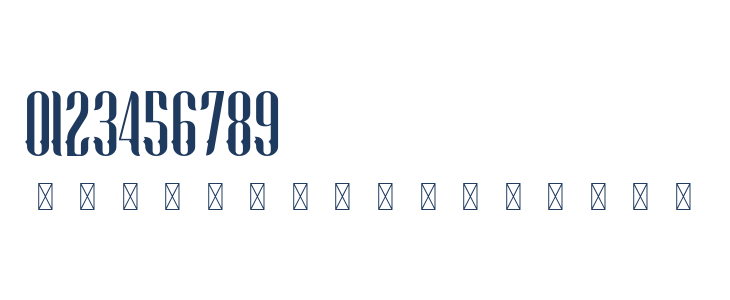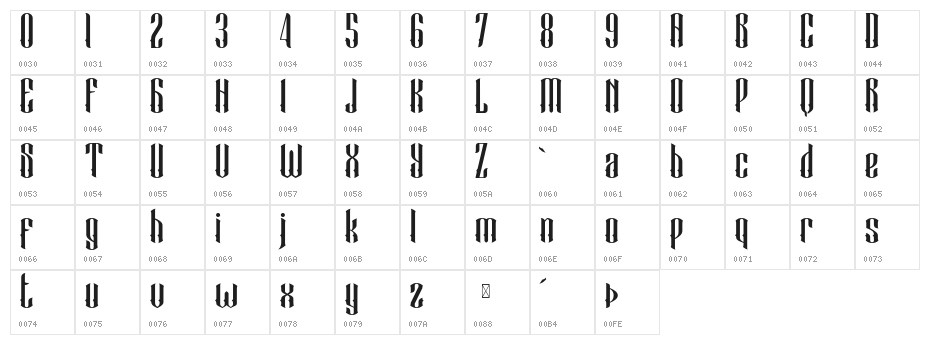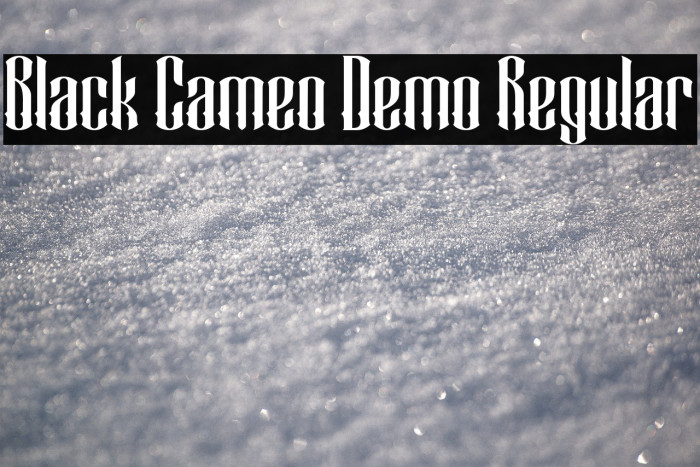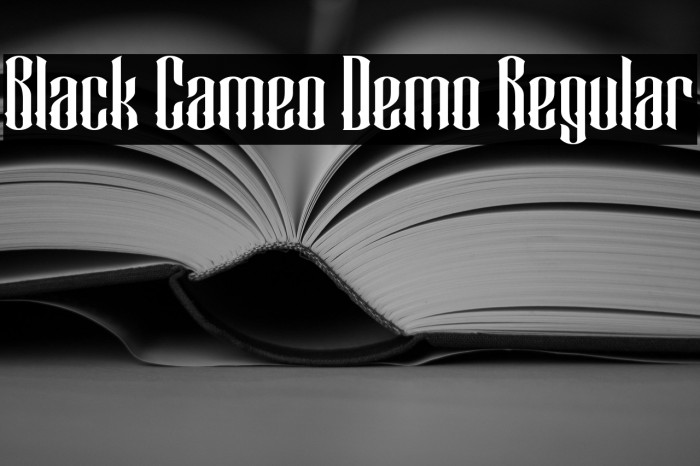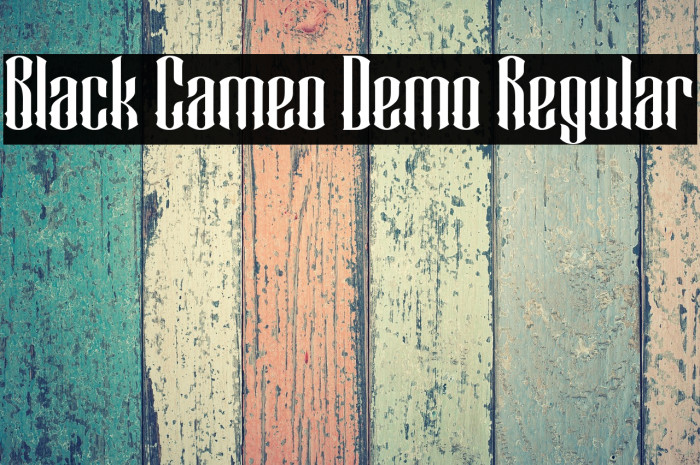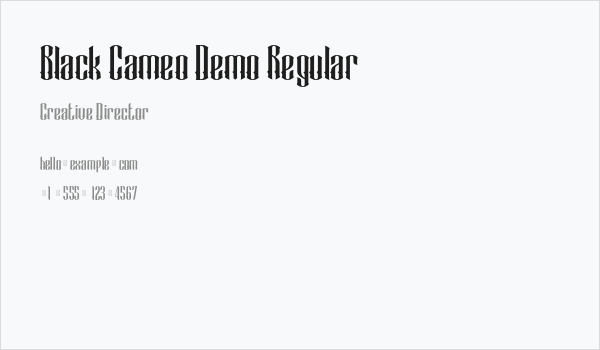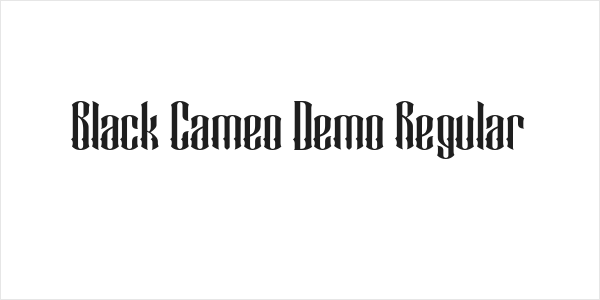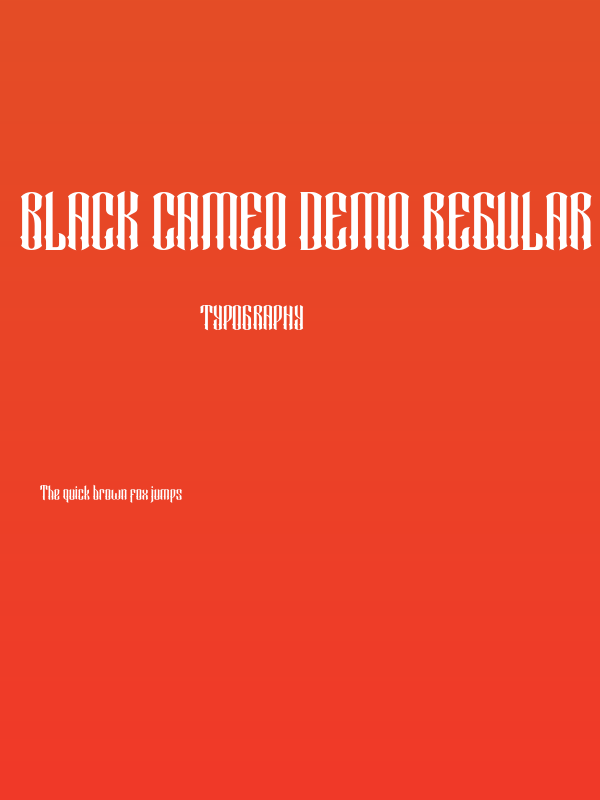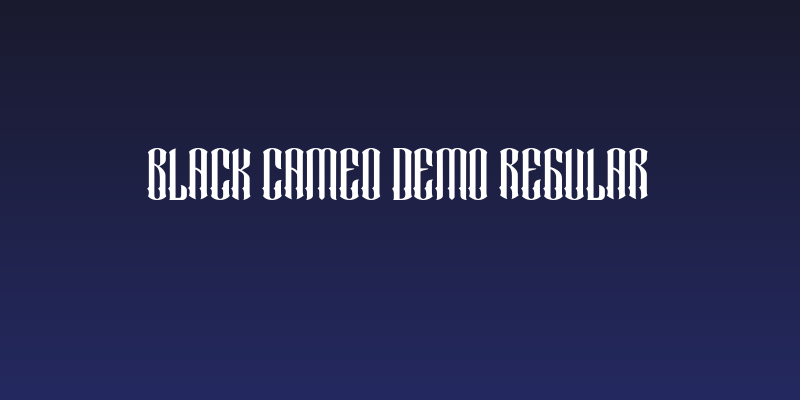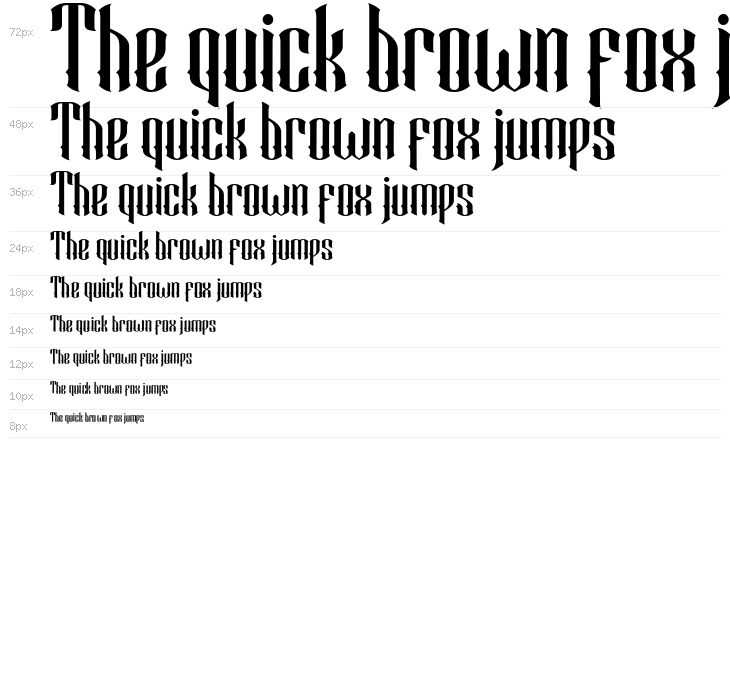
Black Cameo Demo Regular Font
Black Cameo Demo Regular Description
This font exhibits a bold and dramatic style, reminiscent of traditional blackletter typography. The characters are intricately designed with sharp, angular lines and pronounced serifs, giving them a gothic and medieval appearance. The uppercase letters are tall and commanding, while the lowercase letters maintain a consistent style with slightly more curves. The numerals are equally bold, maintaining the overall aesthetic. This font's unique style makes it stand out, suitable for projects that require a strong visual impact.
| Overall Style | Gothic, Dramatic |
| Proposed Projects | Ideal for use in branding, posters, album covers, and any design requiring a dramatic, historical touch. |